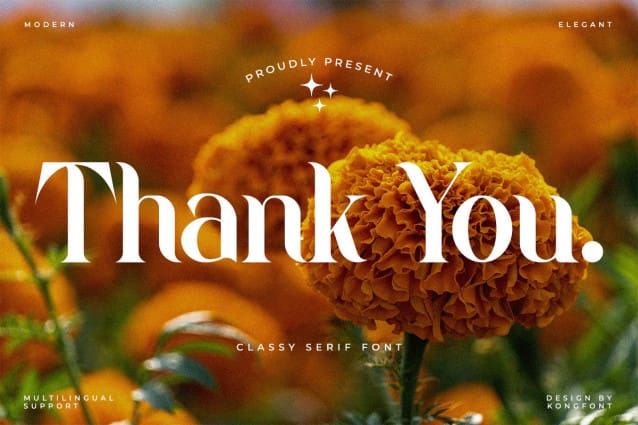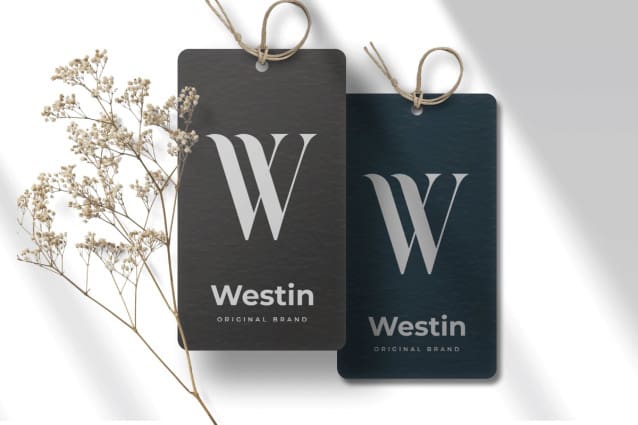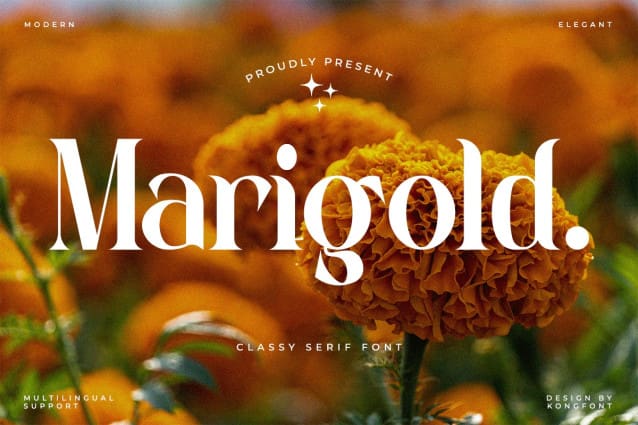
Marigold Font
Marigold Font – Classy Serif Font is one of the fonts with a classic and modern font impression. This impression is what makes this font different from other serif fonts. Marigold Font – Classy Serif Font has a simple shape and a thin serif at the end. It has curved lines that extend beyond the boundaries of the letters. This makes the appearance of this font look classic and elegant.
The characters described above make Marigold Font – Classy Serif Font one of the best fonts that have high compatibility when used as a wedding font. Marigold Font – Classy Serif Font can be used on wedding invitation cards, posters, and souvenirs. The font can be used as a digital font and printed in the appropriate font size cause supported by a legible font type.
Apart from being a wedding font, the Marigold Font – Classy Serif Font is also the best font for branding beauty products. It can be used on packaging as well as a commercial on websites and display posters. This font also has high compatibility when used for social media, both for posting feeds and Instagram stories.